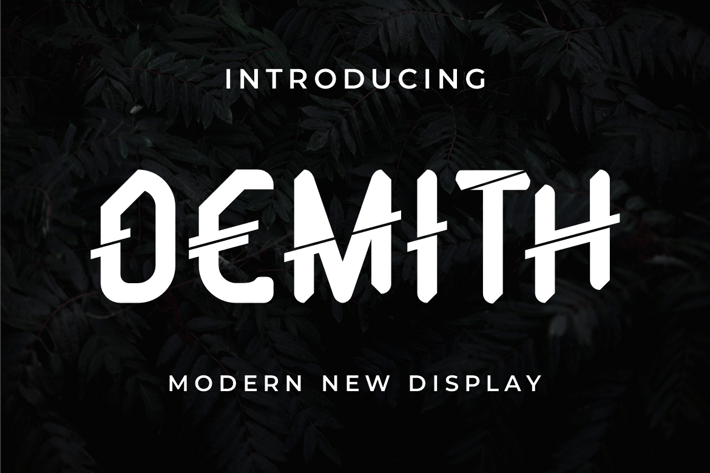
DEMITH Font
Introducing our new product DEMITH Font - Modern Font
DEMITH Font - Modern Font is a bold and authentic display font. The font is suitable for any branding project like logo, t-shirt printing, esport, and many more. outstanding in a wide range of contexts.
Introducing our new product DEMITH Font - Modern Font
DEMITH Font - Modern Font is a bold and authentic display font. The font is suitable for any branding project like logo, t-shirt printing, esport, and many more. outstanding in a wide range of contexts.